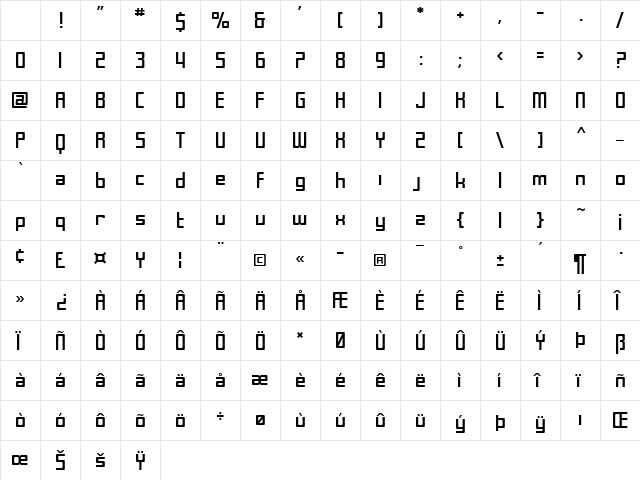
SF Laundromatic Extended Regular Free Font
SF Laundromatic Extended Regular
Design Context for SF Laundromatic Extended
SF Laundromatic Extended is a composed and adaptable typeface that performs quietly and consistently across a wide range of design contexts.